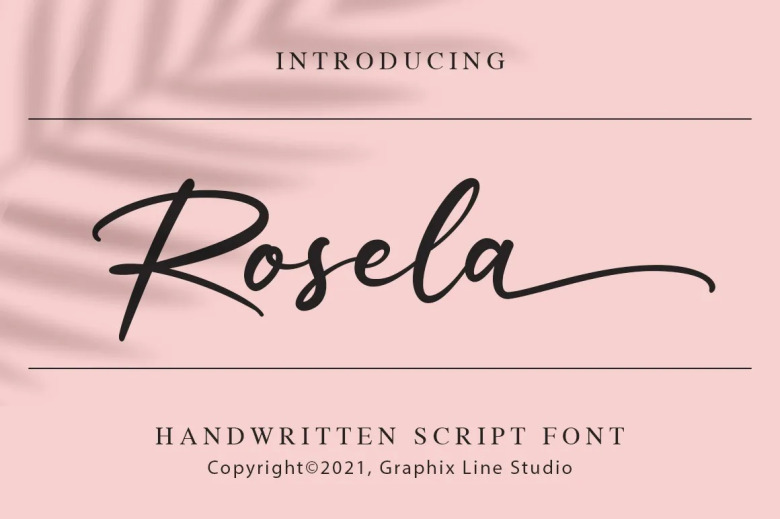
Rosela Font
Rosela is a beautyful script handwritten font for logo, wedding stationery, photography watermark, invitation card, Feminine value and elegant touch. This shopping bag mockup template comes with smooth curves and is an excellent choice for fashion brand or editorial designs. PUA Encoded to easily access all the glyphs and swashes.
Rosela Handwritten Script Font